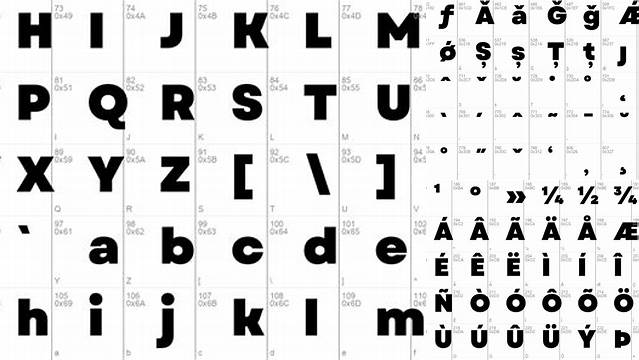
What is Garet Heavy Font?
So, first things first: What exactly is Garet Heavy font? Well, in a nutshell, it's a bold, striking, and attention-grabbing typeface. It's part of the Garet font family, known for its clean lines and modern aesthetic. The "Heavy" in the name gives you a pretty good clue – this font packs a punch! It's designed to make a statement, to grab the viewer's eye and hold it. Think about those designs that you see and immediately think "wow!"? Garet Heavy is often the secret ingredient behind that. It's all about impact, readability, and a touch of contemporary flair.
The beauty of Garet Heavy lies in its versatility. While it's definitely a statement font, it's also surprisingly adaptable. You can use it for headlines, titles, logos, and even shorter blocks of text. It's got a certain sophistication that can elevate your designs, making them look polished and professional. The font's design ensures it maintains clarity even when scaled up or down, ensuring that your message is always clear. Its bold nature ensures that your text won't get lost in the visual noise, making it perfect for projects that demand attention. The key characteristics include a strong presence, excellent legibility, and a modern design that feels fresh and relevant. It's the kind of font that can make your work stand out from the crowd, giving your designs a distinctive edge. Its ability to command attention makes it ideal for branding, advertising, and any project where you want to make a bold statement.
But, why exactly would you want to use a font like this, instead of a more general or subdued font? Let me tell you! Because it communicates power, boldness, and confidence. It is perfect for brands that want to convey strength, stability, and a sense of authority. In advertising, it can be used to create impactful headlines that grab the attention of the target audience immediately. The font can be used for a wide array of projects, from website headers to print materials, it can deliver your message in a clear, memorable way. From a design perspective, Garet Heavy provides a sleek, modern look that resonates well with contemporary aesthetics. The clean lines and strong letterforms ensure high readability, even at larger sizes. The font's versatility allows it to be combined with other fonts to create dynamic and eye-catching designs. For logos, it can be used to build a strong brand identity that is easy to identify and remember.
Using Garet Heavy in Your Designs
Okay, so you've got the font installed. Time to put it to work! Garet Heavy is perfect for a range of design projects. For example, in your website designs, Garet Heavy can be used for headers, sub-headers, and call-to-action buttons. It's a fantastic way to grab attention and guide users through your content. For branding purposes, it's excellent for logos, taglines, and packaging. Its bold and clean appearance creates a professional and memorable brand identity. In print materials, such as posters, flyers, and brochures, Garet Heavy will help your headlines stand out and your message be easily understood. Also, when you are thinking of social media, Garet Heavy can be used for eye-catching posts, graphics, and quotes. Because of its boldness and legibility, it's ideal for creating viral content.